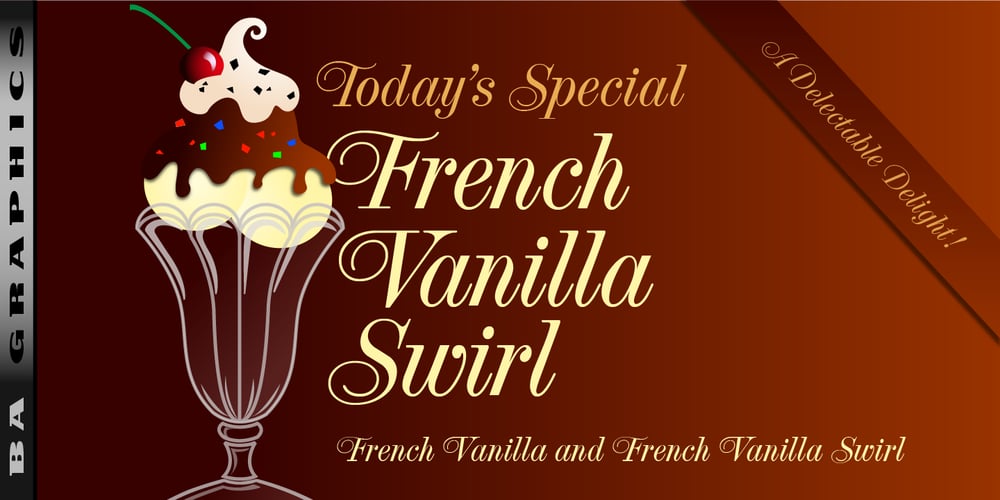
French Vanilla
French Vanilla font
French Vanilla Font Family was designed by Bob Alonso and published by BA Graphics. French Vanilla contains 2 styles and family package options. A creative design with modern styling. Available in plain or swash style. Great for Invitations, Fashion, Decorative Designs and much more. Just mix and match some swash characters for a little flare.